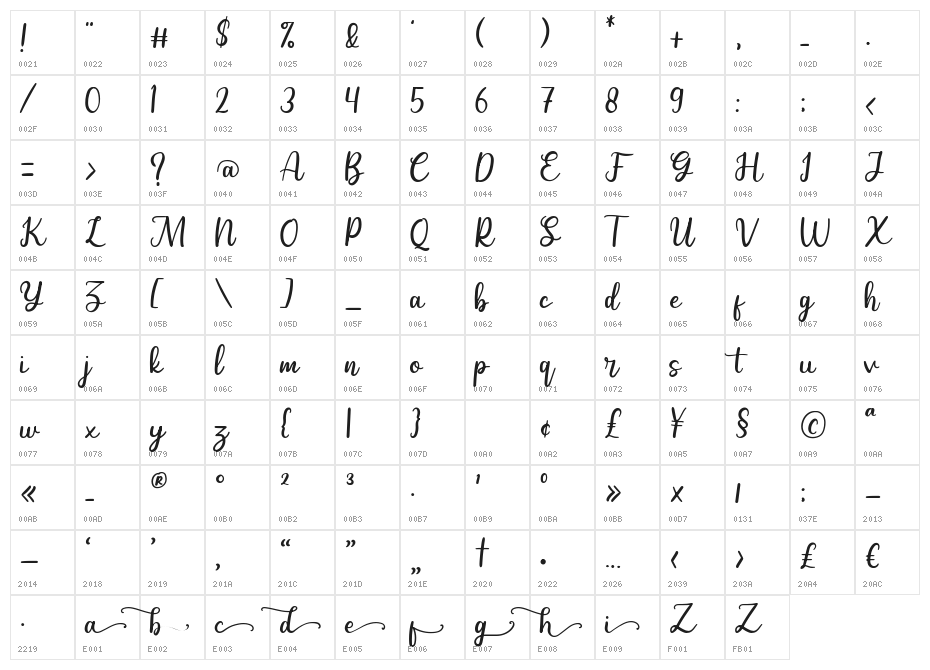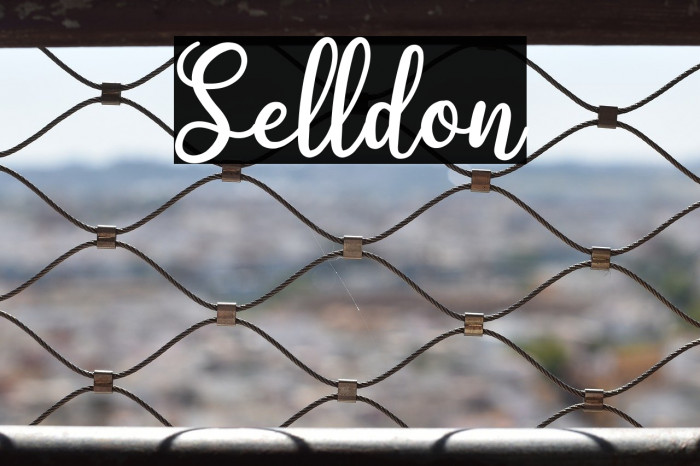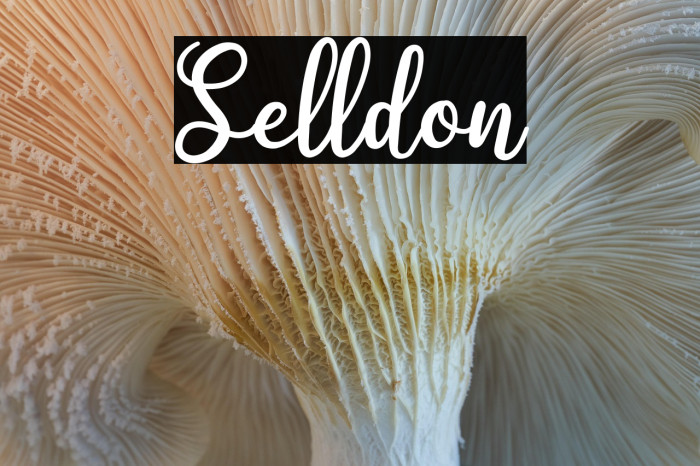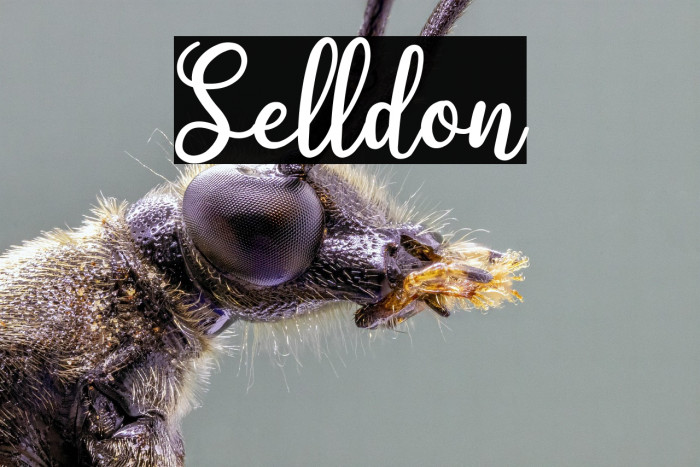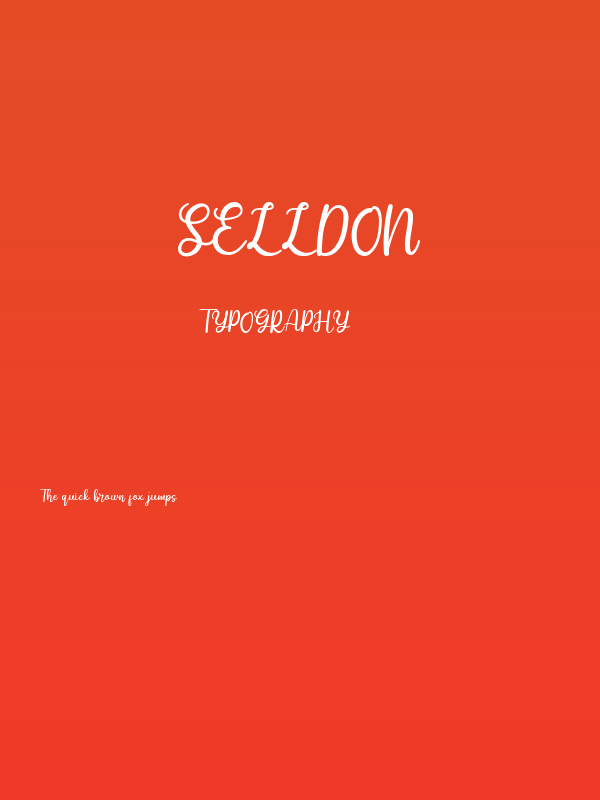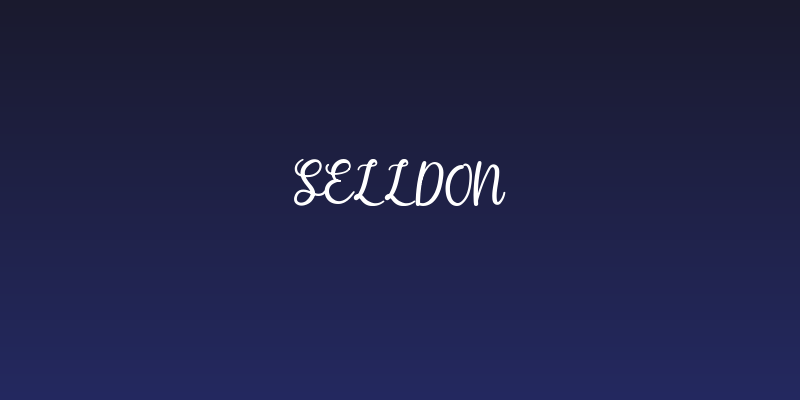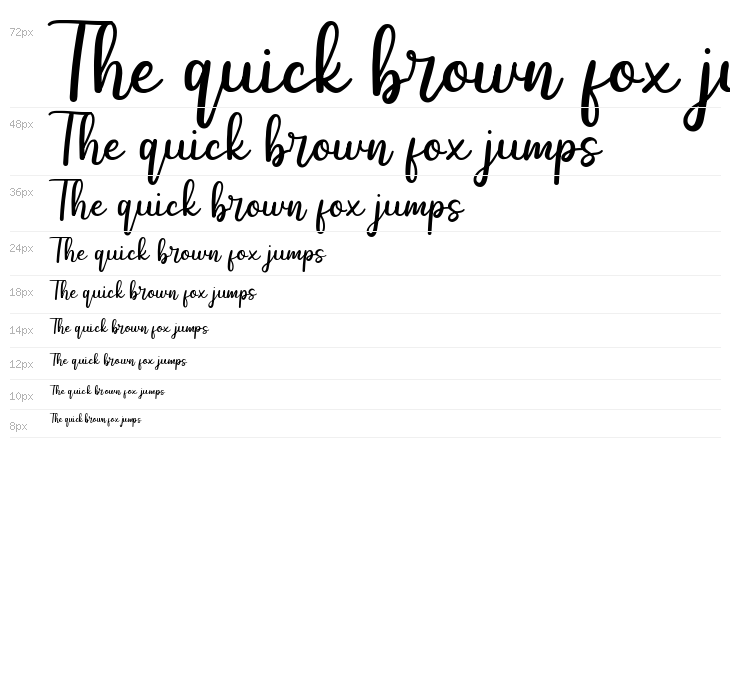
Selldon Font
Selldon Description
This font features a lively and flowing script style, characterized by its smooth, cursive letterforms that convey a sense of elegance and fluidity. The uppercase letters are slightly more formal, with graceful loops and swashes, while the lowercase letters maintain a consistent rhythm and flow. The numerals are designed to complement the letters, with a similar cursive style that ensures readability. Special characters are well-integrated, maintaining the overall aesthetic of the font. The strokes are consistent in weight, providing a balanced appearance that is both decorative and legible.
Overall StyleElegant, Decorative
Use CaseLogos, Invitations, Decorative text
Proposed ProjectsIdeal for wedding invitations, greeting cards, branding, and elegant packaging designs.